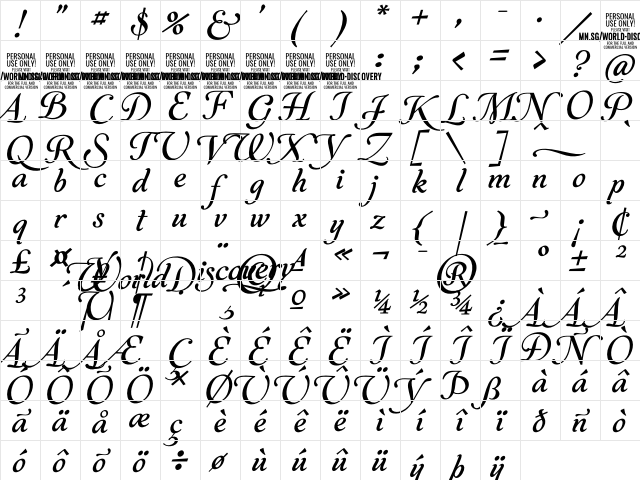
Complete World Discovery One PERSONAL Regular glyph index. Displaying only characters natively supported by World Discovery One PERSONAL Regular font.
World Discovery One PERSONAL is a composed and adaptable typeface that performs quietly and consistently across a wide range of design contexts.